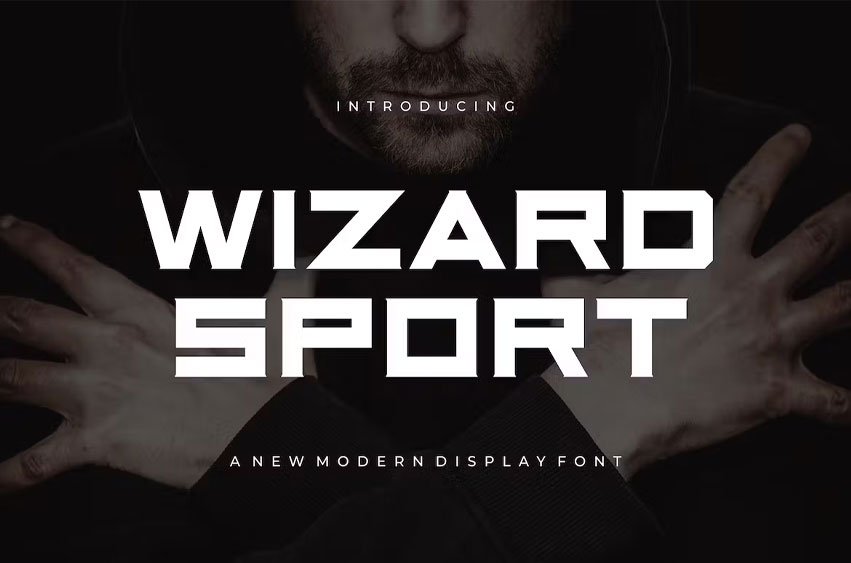
Wizard Sport Font
Wizard Sport Font Modern Font is a simple and authentic display font. Crafted with high attention to detail, it gives you the best design experience.